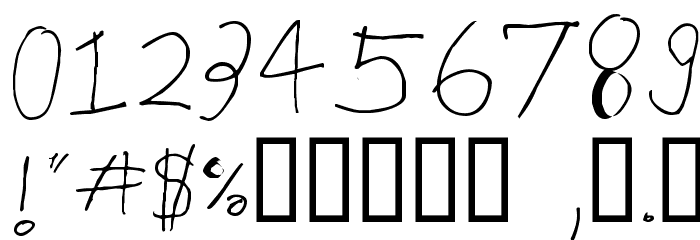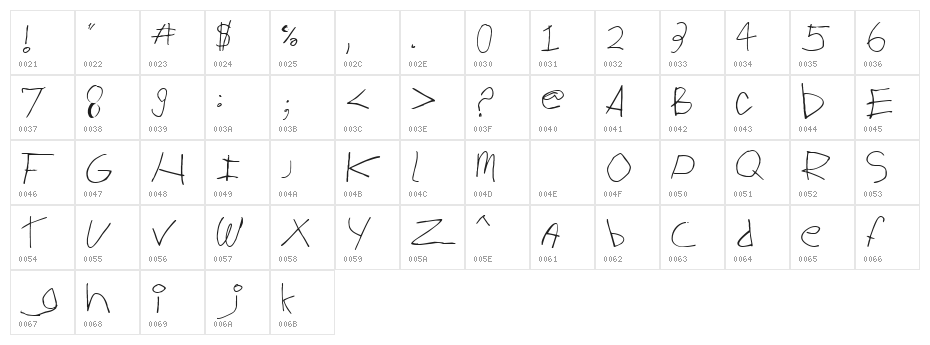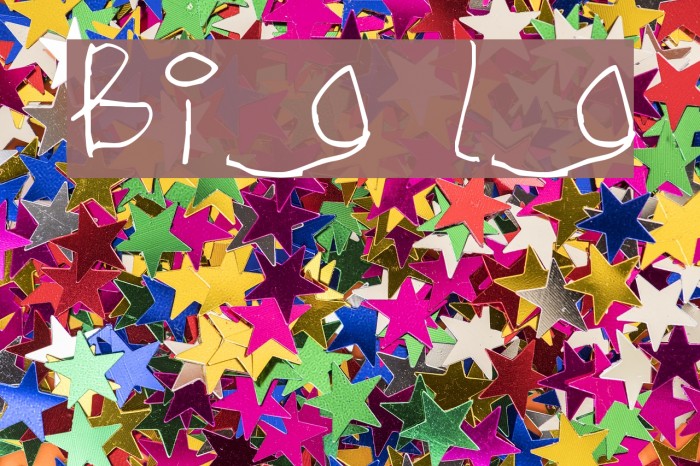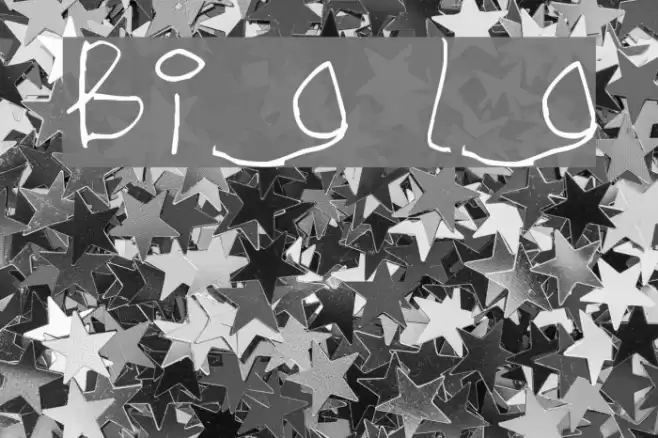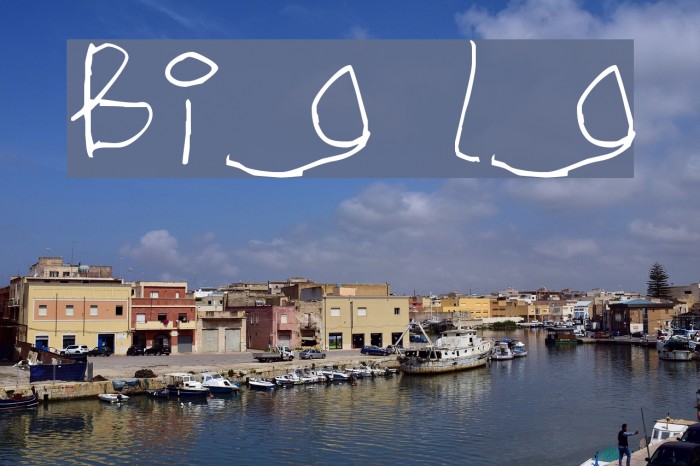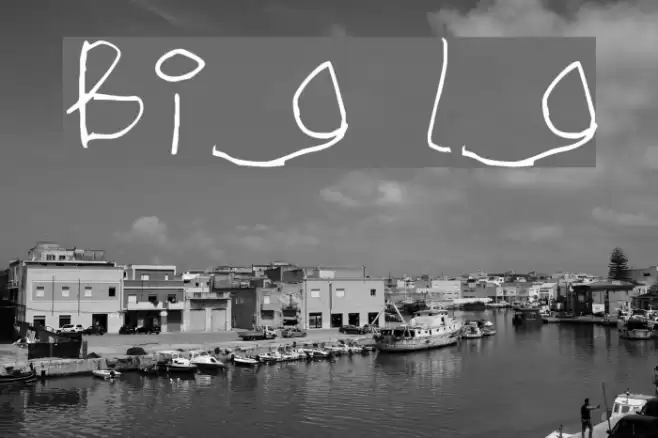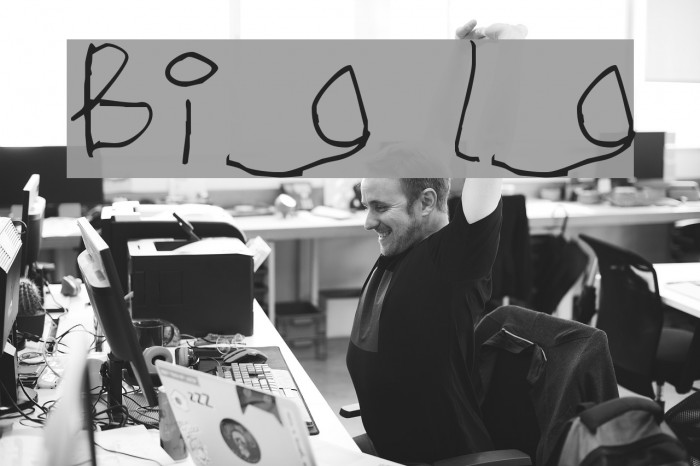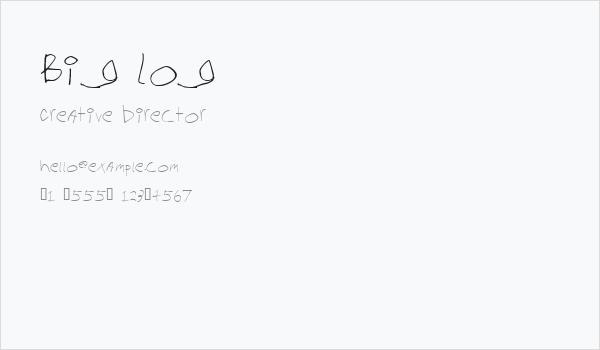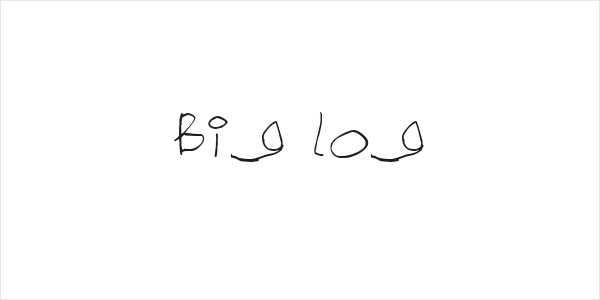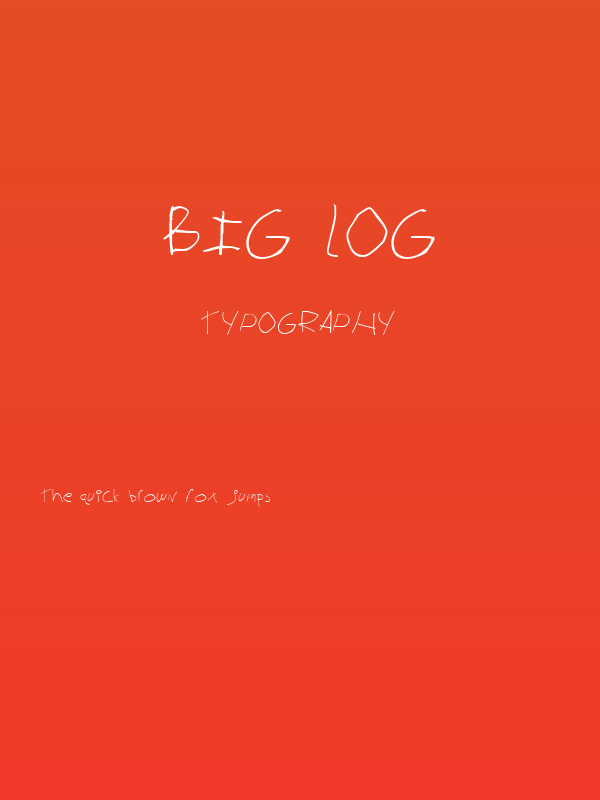
Big Log Font
This font exhibits a playful and casual handwritten style, characterized by its irregular and dynamic strokes. The uppercase letters are bold and slightly slanted, giving a sense of movement and spontaneity. The lowercase letters maintain a consistent flow, with some characters featuring unique loops and curves that add to the font's charm. The numbers are distinct and easy to read, while the special characters retain the same whimsical quality. Overall, this font conveys a sense of informality and creativity, making it suitable for projects that require a personal touch.
Overall StyleCasual
Use CaseHeadlines, Informal text, Creative projects
Proposed ProjectsIdeal for greeting cards, children's books, casual invitations, and creative branding.